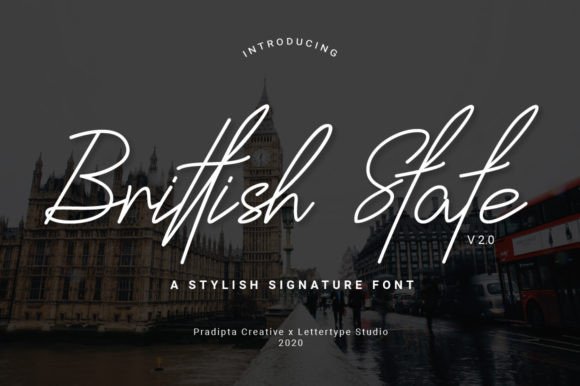
Discover Brittish State, the Remarkable Script Font That Will Captivate Your Online Presence!
Prepare to be enchanted by Brittish State, an awe-inspiring script font born from the creative mind of pradiptacreative. This extraordinary font possesses an innate ability to elevate your digital communications to new heights, leaving an enduring impression on your audience. Whether you're crafting captivating email signatures, designing compelling social media graphics, or adding a touch of elegance to your website, Brittish State stands ready to be your trusted companion.
Immerse yourself in the world of Brittish State, where graceful strokes dance across the digital canvas, creating a symphony of visual delight. Each letterform is meticulously crafted with a keen eye for detail, resulting in a font that exudes both sophistication and playfulness. Its tall and modern structure lends a sense of grandeur to your words, making them leap off the screen and demand attention.
With Brittish State as your creative ally, you'll unlock a universe of design possibilities. Its remarkable versatility empowers you to effortlessly adapt it to a myriad of projects, from formal invitations and certificates to informal blog posts and personal letters. Its inherent charm shines through in every application, adding a touch of magic to your digital creations.
Picture this: you're sending an email to a potential client, and your closing signature is adorned with the elegant strokes of Brittish State. The recipient's eyes are instantly drawn to the distinctive font, piquing their curiosity and leaving them with a lasting impression of your professionalism and attention to detail. Or perhaps you're designing a social media post to promote your latest product, and Brittish State becomes the perfect vehicle to convey your message with flair. Its captivating curves and dynamic energy ensure that your post will stand out from the digital clutter and leave a lasting mark on your audience's minds.
Brittish State possesses an uncanny ability to evoke emotions and create connections. Its graceful lines and playful spirit bring a sense of warmth and approachability to your digital communications. When you use Brittish State, you're not just sending a message; you're crafting an experience that resonates with your audience on a deeper level.
Embrace Brittish State today and embark on a creative journey like no other. Let its beauty and versatility inspire you to create captivating designs that leave a lasting impression. With Brittish State by your side, you'll unlock a world of endless possibilities and take your digital presence to soaring new heights.